NEW YEAR’S Incredible Mix of Fonts
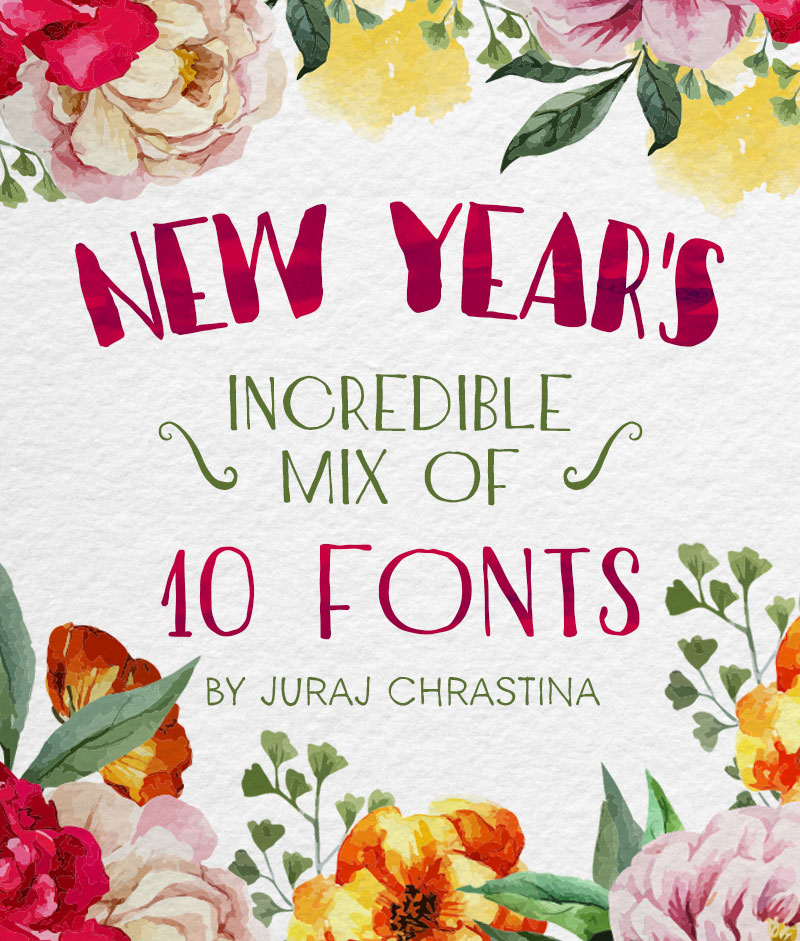
New year, new projects to start! Happy New Year! Let’s begin this year on a high note with some fantastic projects. For this, the GraphicLoot team has partnered with the very talented graphic designer, Juraj Chrastina, to bring you an awesome deal. This NEW YEAR’s Incredible Mix of Fonts bundle offers you a total of 10 incredible font creations. These fonts will make your projects truly unique and much more interesting than your usual work. This New Year font bundle is excellent for a wide range of applications. Think logos, books, posters, t-shirts, pillows, bags, wedding invitations, and business cards. Don’t hesitate to grab this opportunity to stand out and showcase your talent. Get this amazing New Year font bundle now and save over 94% off the regular price!
This New Year font bundle is packed with versatility. Each font in this collection has been carefully curated to offer distinct styles. You’ll find options perfect for adding a touch of elegance to wedding invitations or a bold statement to your latest poster design. Furthermore, the included fonts are ideal for branding projects, helping you create memorable logos and business cards. Imagine the impact these unique fonts can have on your merchandise, from eye-catching t-shirts to charming pillows and bags. This New Year font bundle is your secret weapon for making every design pop.
Elevate Your Designs with the New Year Font Bundle